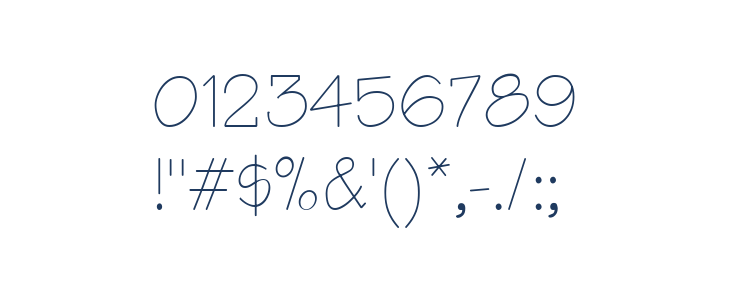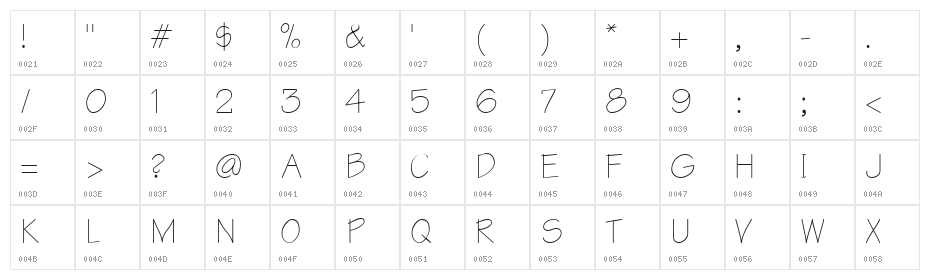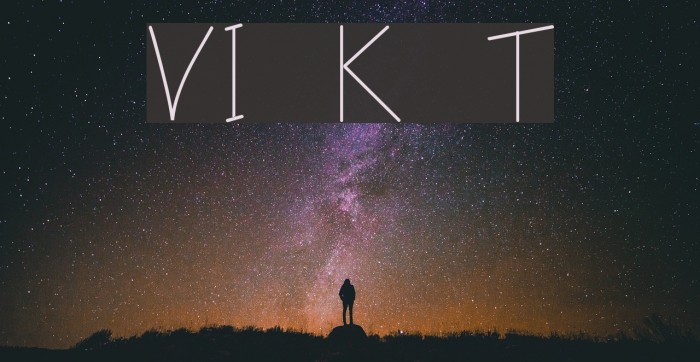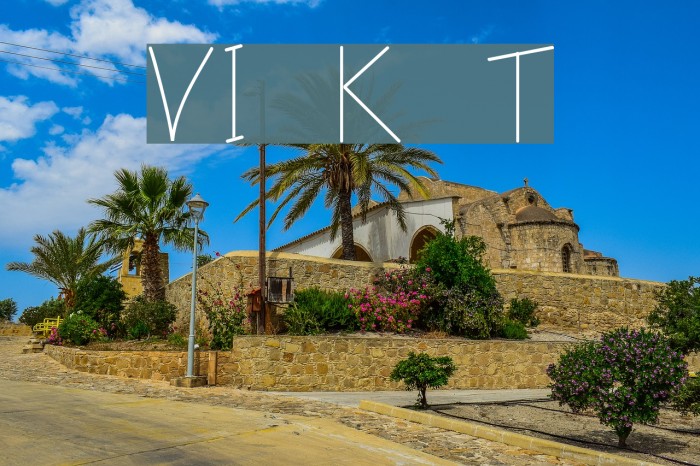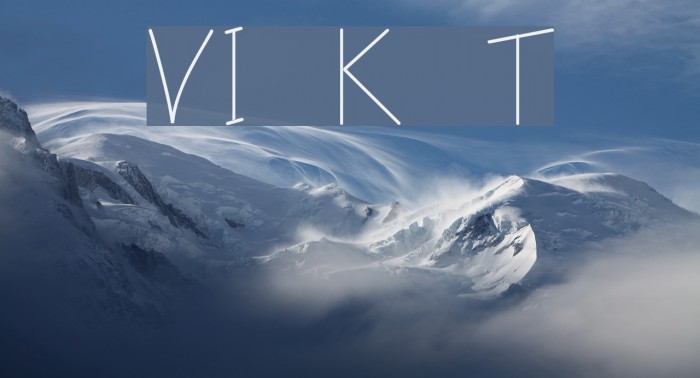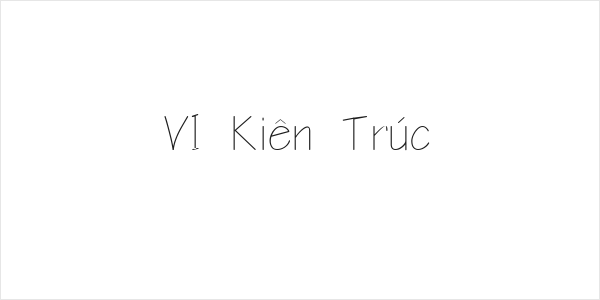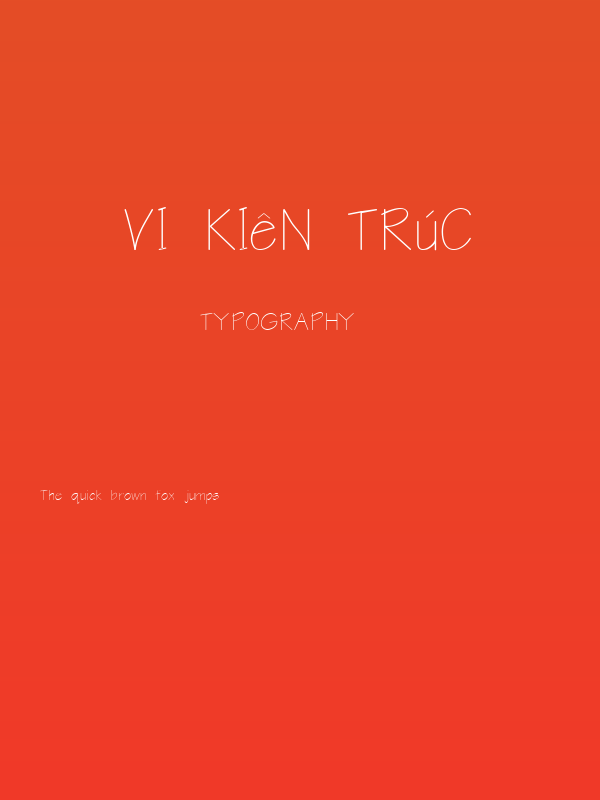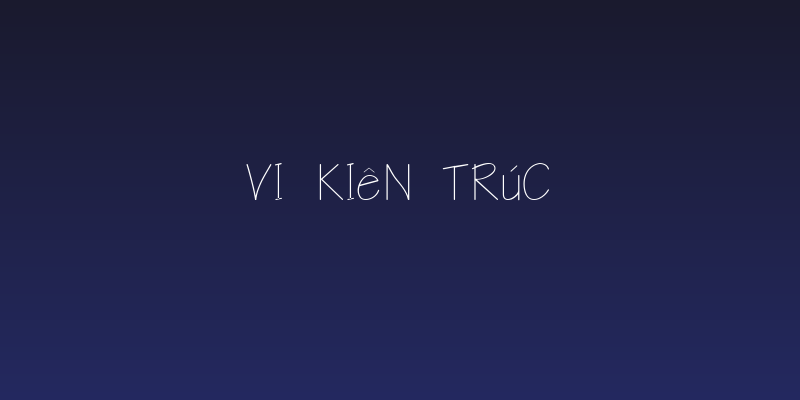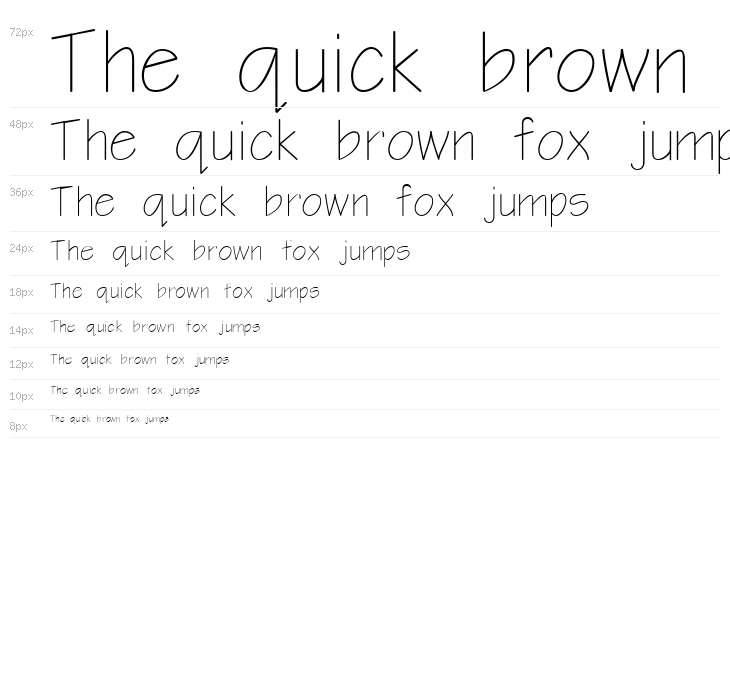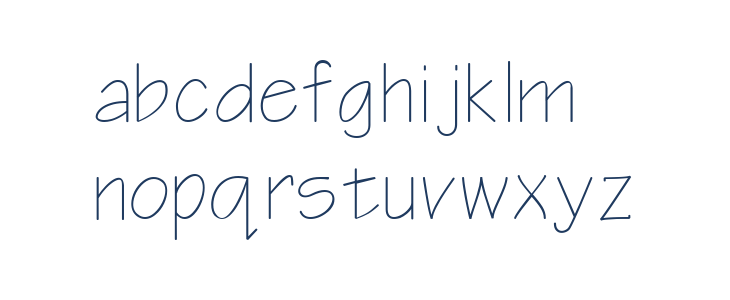
VI Kiên Trúc Font
VI Kiên Trúc Description
This font features a playful and whimsical design with thin, uniform strokes that give it a light and airy appearance. The characters are slightly slanted, adding a dynamic and informal touch. The uppercase letters are tall and narrow, while the lowercase letters maintain a consistent height, enhancing readability. The numbers and special characters follow the same playful style, making the font suitable for creative and informal projects. Its overall simplicity and charm make it versatile for various design needs.
| Proposed Projects | Ideal for children's books, greeting cards, playful branding, and casual invitations. |